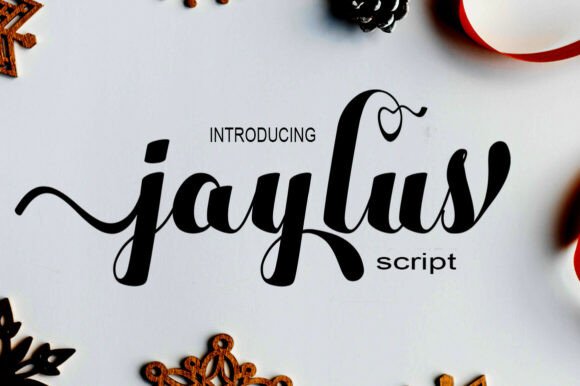
Jaylus Script: A Joyful Typeface for Makers
The afternoon light was filtering through the window of my craft studio, casting a warm glow over the scattered paper scraps and half-finished candle jars on my workbench. I was stuck on the final touch for my holiday collection: the labels needed to feel festive and cozy, yet modern enough to stand out in a crowded digital shop. I had tried several standard script fonts, but they felt too stiff or overly traditional. That is when I opened Jaylus Script, and the moment I typed "Cozy Winter," the design came alive. The thick, confident strokes paired with that whimsical, bouncy baseline instantly infused the label with a sense of rhythm and joy that I had been searching for.
For anyone running a handmade business, creating printables, or designing custom merchandise, finding the right typeface is often the difference between a generic item and a memorable brand asset. Jaylus Script is not just another decorative font; it is a tool that brings personality to physical products. As a creator who spends hours testing designs on everything from vinyl stickers to wedding invitations, I have found that this modern script font strikes a perfect balance between elegance and playfulness. It feels like a handwritten note from a friend, but with the polish of professional typography.
Bringing Rhythm to Handmade Labels and Packaging
One of the first projects where Jaylus Script truly shined was designing labels for small-batch soy candles. The challenge with product labels is that they must be legible at a small size while still conveying the mood of the scent inside. With Jaylus Script, the thick downstrokes provide excellent contrast against the thin upstrokes, ensuring that even when scaled down for a 2-inch round sticker, the text remains crisp and readable. The bouncy baseline adds a subtle movement that makes the label feel dynamic rather than static.
I tested the font on various packaging materials, from kraft paper tags to glossy cardstock. On the matte finish of a boutique gift box, the font's confident weight gave the packaging a premium feel, elevating the perceived quality of the product inside. When used for short phrases like "Hand Poured" or "Made with Love," Jaylus Script acts as a visual anchor, drawing the customer's eye immediately to the craftsmanship. This kind of attention to detail in packaging design is crucial for building brand identity and encouraging customers to share their unboxing experience on social media.
Perfect for Seasonal and Holiday Collections
As the seasons change, so do the needs of a creative shop owner. During the holiday rush, I turned to Jaylus Script to create festive greeting cards and holiday gift tags. The font's inherent joy makes it ideal for seasonal messaging without feeling cliché. Unlike some script fonts that can look overly frilly or dated, Jaylus maintains a contemporary edge that fits well with modern farmhouse decor, minimalist aesthetics, and bold graphic styles alike.
I designed a set of printable wall art featuring holiday wishes, using Jaylus Script for the main title and pairing it with a clean sans serif font for the date and location details. The contrast created a balanced composition that looked professional in mockups and printed beautifully on heavy cardstock. Whether you are selling digital downloads of Christmas cards or crafting physical signs for your local market, this creative font adapts seamlessly to different mediums while maintaining its cheerful character.
Designing Invitations and Wedding Stationery
Wedding stationery requires a delicate touch, blending romance with clarity. When working on invitation suites, I often use Jaylus Script for the couple's names or key headings like "Save the Date." The fluidity of the letters mimics the natural flow of calligraphy, adding an emotional appeal that resonates with couples planning their special day. However, because it is a digital typeface, it offers the consistency of a machine-made font with the charm of hand-lettering.
It is important to remember that while Jaylus Script is stunning for display purposes, it is best suited for short phrases, names, and titles rather than long paragraphs of body text. For the detailed event information on a wedding invite, I pair it with a simple serif font or a neutral sans serif font. This font pairing strategy ensures that the invitation remains easy to read while allowing the script to shine as the focal point. The result is a cohesive design that feels curated and high-end, which is essential for attracting clients looking for bespoke stationery.
Readability Tips for Cutting Machines and Stickers
For makers who use Cricut or Silhouette machines to cut vinyl decals, understanding how a font behaves is critical. Jaylus Script has been a reliable choice for cutting projects, provided you pay attention to the kerning and spacing. Because of the varying stroke widths, very small sizes might cause issues if the connection points between letters are too thin. I recommend testing a sample cut before committing to a full batch of stickers or shirt designs.
When creating product tags or tote bag prints, ensure there is enough white space around the text to let the bouncy baseline breathe. Crowding the letters can diminish the playful energy that defines the font. Additionally, if you are printing on dark fabrics or colored backgrounds, consider using a slightly larger point size to maintain the integrity of the thick strokes. These small adjustments make a significant difference in the final presentation of your merchandise.